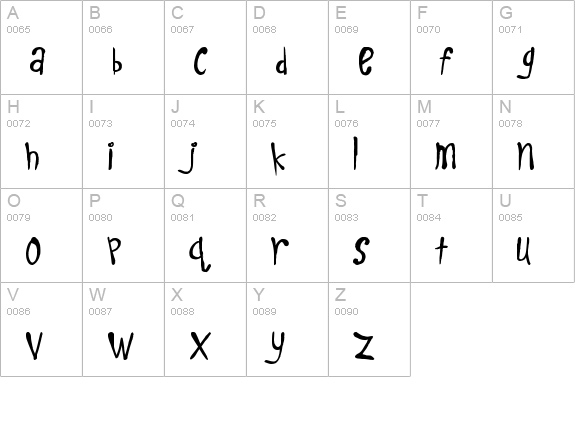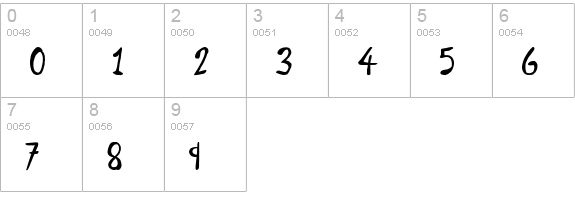
childish Font Details
Are you ready to add a touch of whimsy and playfulness to your designs? Look no further than the Childish font! This adorable and charming typeface is perfect for creating designs that are youthful, fun, and full of joy. With its playful curves and quirky letterforms, Childish captures the innocence and wonder of childhood. Whether you're working on a children's book, a birthday invitation, a nursery room poster, or any other project that needs a lighthearted vibe, Childish is the ideal font choice. Its unique design will instantly bring a smile to anyone's face and add a sense of wonder and imagination to your creations. But here's the best part: Childish is not only delightful, it's also free! That's right, you can easily download this font for free at FontsMarket.com. We believe that creativity should be accessible to everyone, and that's why we offer this amazing font at no cost. So go ahead and let your inner child run wild with the Childish font. Download it today and watch your designs come to life with a touch of whimsy and joy!